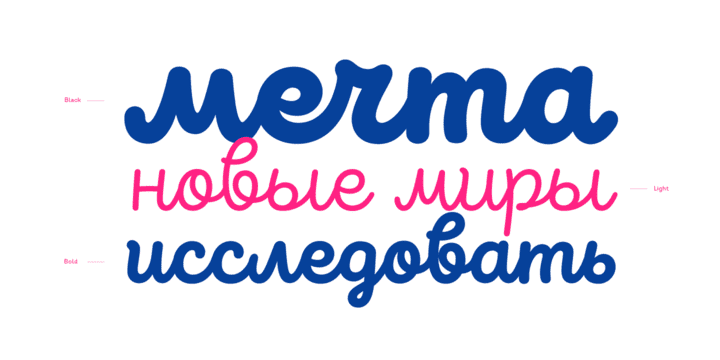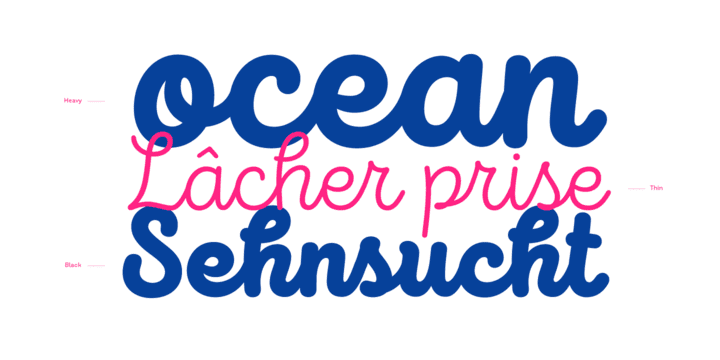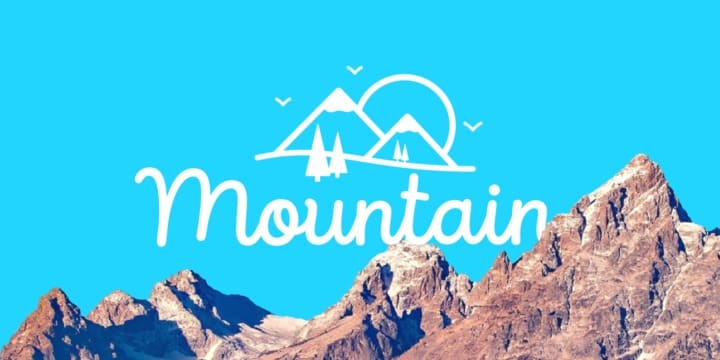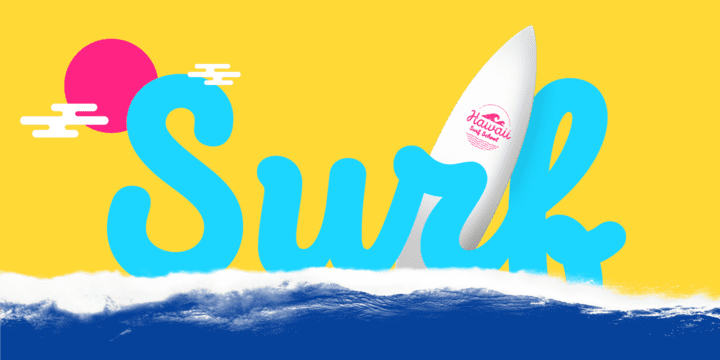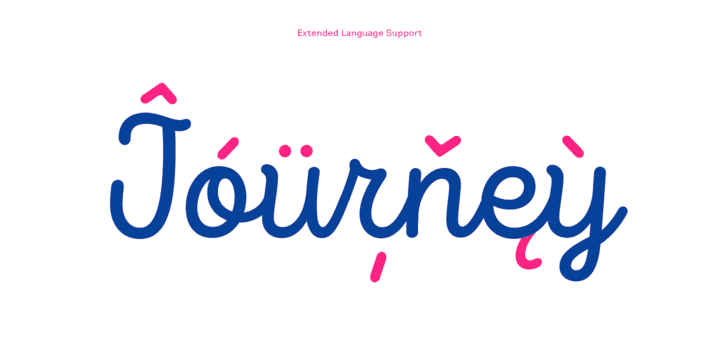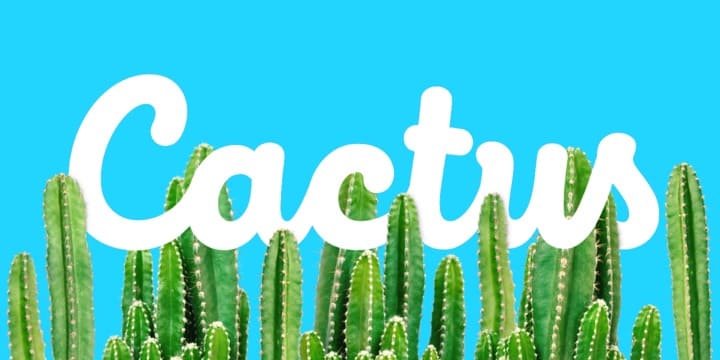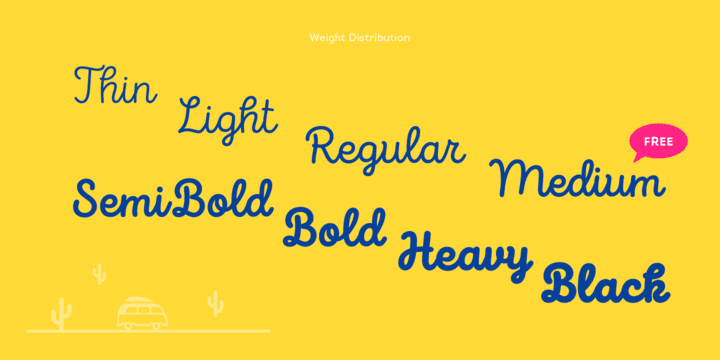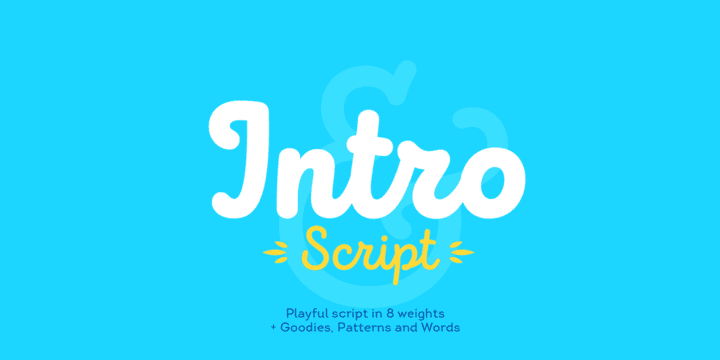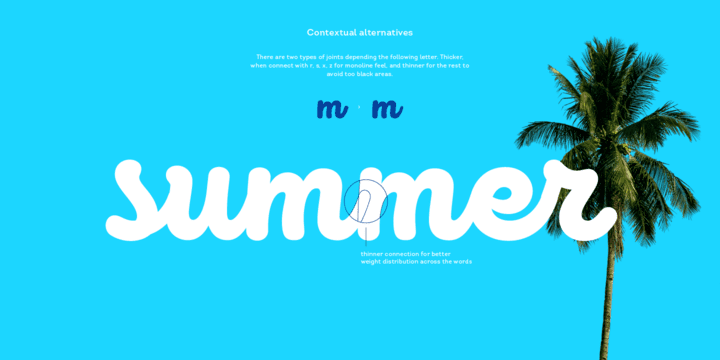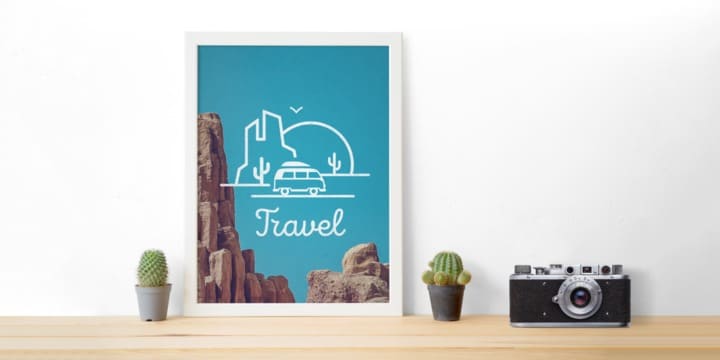
Intro Script Family (11 fonts)
The set includes a large number of ligatures and contextual alternates, including both lower and upper case versions, as well as positional variations. The latter allow for symbols to connect at different joints, and help you dodge unnecessary voids, resulting in an efficient work process and a more natural flow.
With its broad language support and wide range of OpenType features, Intro Script’s friendly, hand-crafted appearance makes it a suitable and flexible choice for any design.
Features:
• An updated and polished version of the famous multifaceted bundle
• 8 refined monoline styles;
• Extended language support;
• Supplementary goodies - words, patterns, banners;
• Additional ligatures and contextual alternates;
• Stylistic positional variations;